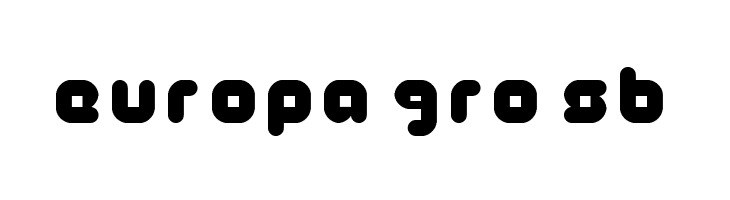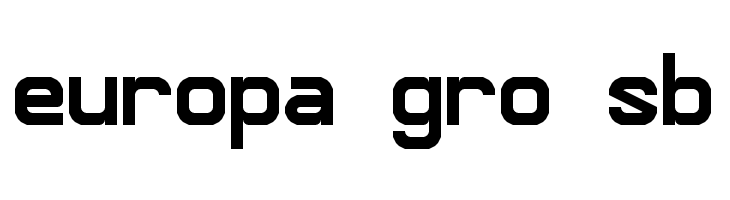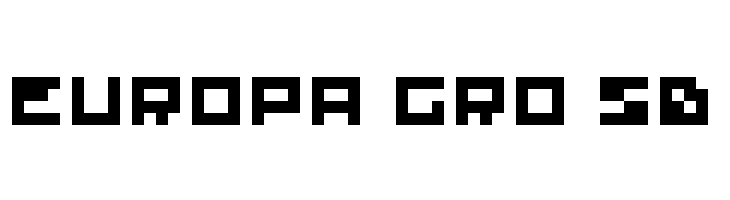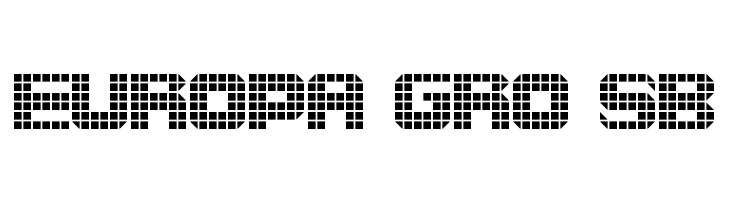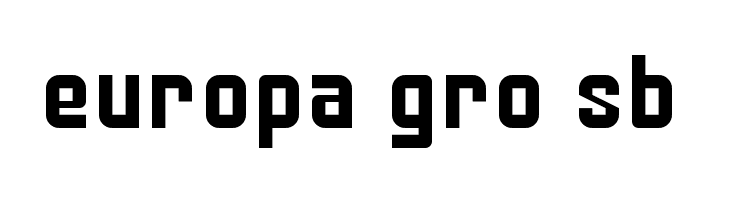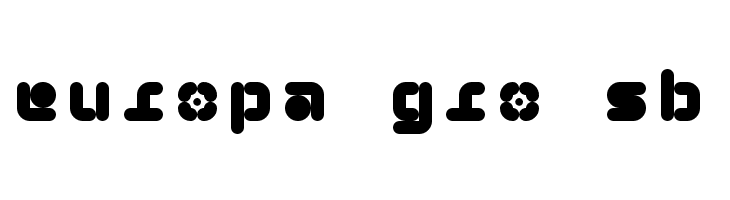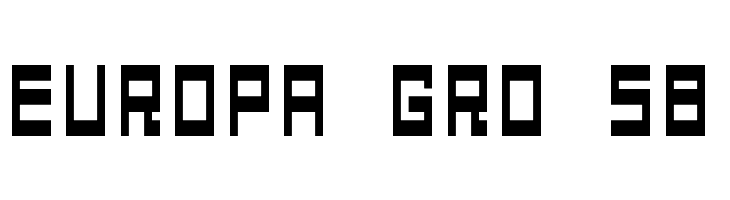
A bold, rounded font with a modern and playful style.
A modern, monospaced font with clean lines and uniform spacing.
A bold, geometric stencil font with a modern, industrial style.
A bold, geometric font with a pixelated, retro digital style.
A pixelated, blocky font with a retro digital display style.
A pixelated, retro-style font with a blocky, digital appearance.
A grid-based, pixel-inspired font with a bold, modern aesthetic.
A modern, geometric sans-serif font with a bold and structured appearance.
A playful, bold font with rounded, geometric shapes and consistent thickness.
A bold, geometric font with a digital, retro aesthetic.